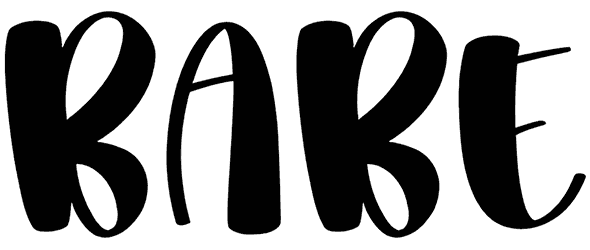
Hello Prawita Font
Hello Prawita is a fancy rounded font with a cartoonish appearance that can give off a friendly and playful vibe. Its interesting and whimsical design makes it excellent for a variety of artwork that requires a pleasant and intimacy looking.
Comic books, party posters for kids, and other similar ventures are examples of this cartoon font. Simply browse our virtual library to locate more products similar to this one.
Designed by: The Docallisme